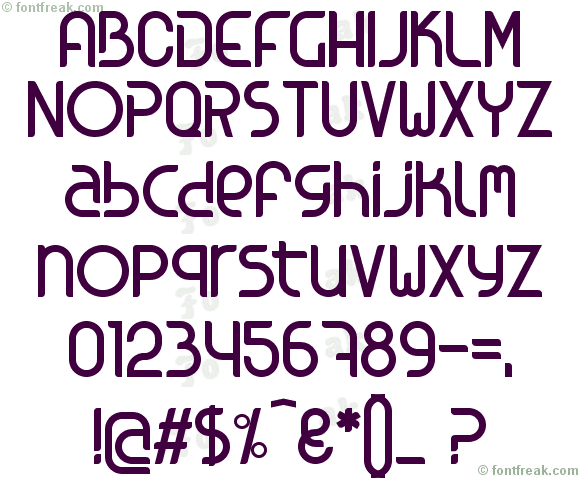
Kosova
About Kosova
Kosova, designed by Adolfo Rojas in 2015, is a striking sans-serif font that exemplifies modern minimalism with a touch of elegance. Its clean lines and geometric shapes create a harmonious visual balance that makes it versatile for various design applications. The font features a consistent stroke weight, which contributes to its readability while maintaining a contemporary aesthetic. The well-defined letters have a moderate contrast that enhances legibility, making it suitable for both print and digital formats.
Kosova's visual characteristics are marked by its open spacing and straightforward design, allowing for seamless integration into numerous projects. Its straightforward yet sophisticated look makes it ideal for use in wedding invitations, where it can convey a sense of elegance; restaurant menus, where clarity and style are paramount; business cards, providing a professional impression; and social media graphics, where it stands out while maintaining readability. Additionally, it is an excellent choice for branding materials, helping businesses create a cohesive identity.
The target audience for the Kosova font includes graphic designers, small business owners, content creators, and anyone looking to elevate their visual communication. Whether you are crafting a logo or designing promotional materials, Kosova offers a refreshing alternative to more traditional fonts.
What sets the Kosova font apart is its balance of simplicity and sophistication, making it a perfect choice for a wide range of applications. The combination of its modern design and practical usability ensures that it will make a lasting impression. For those interested in incorporating this stylish typeface into their projects, Kosova font free download is readily available, allowing designers to harness its unique qualities without any cost.